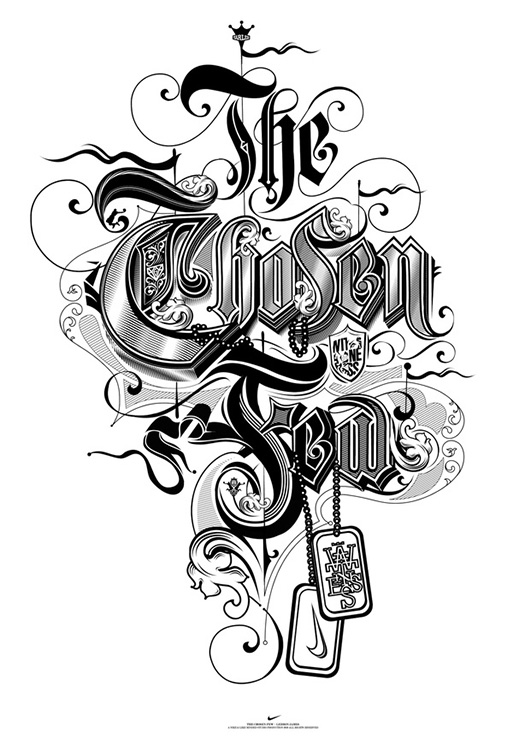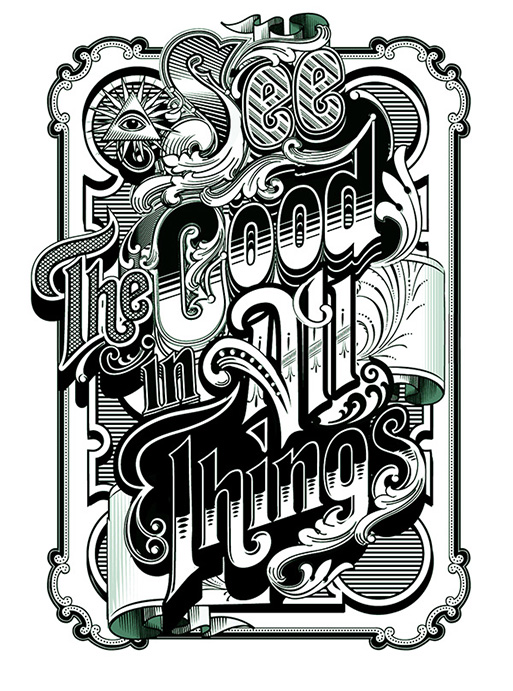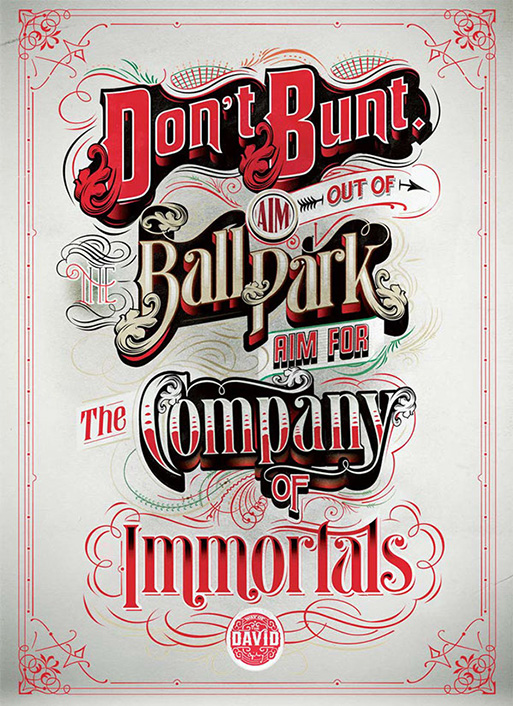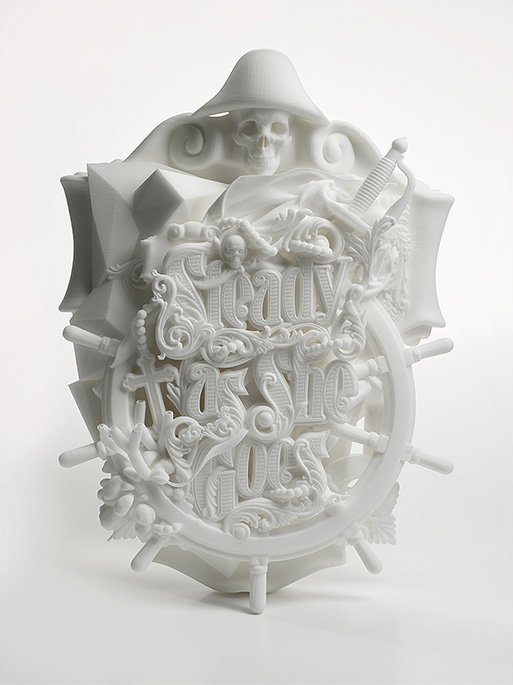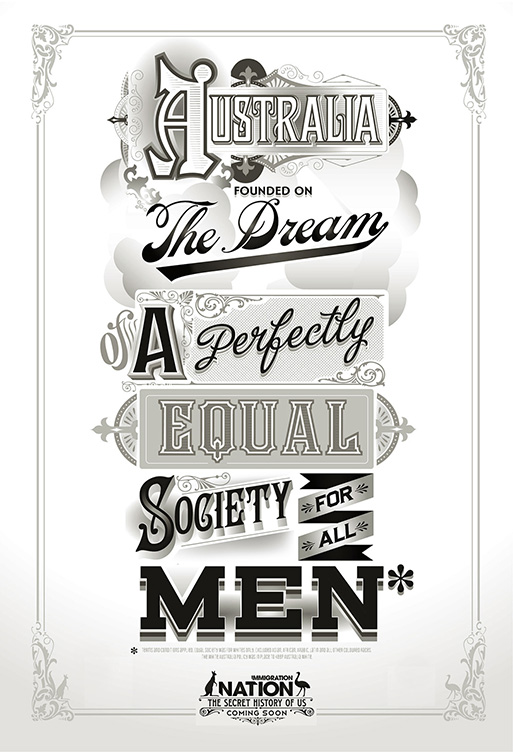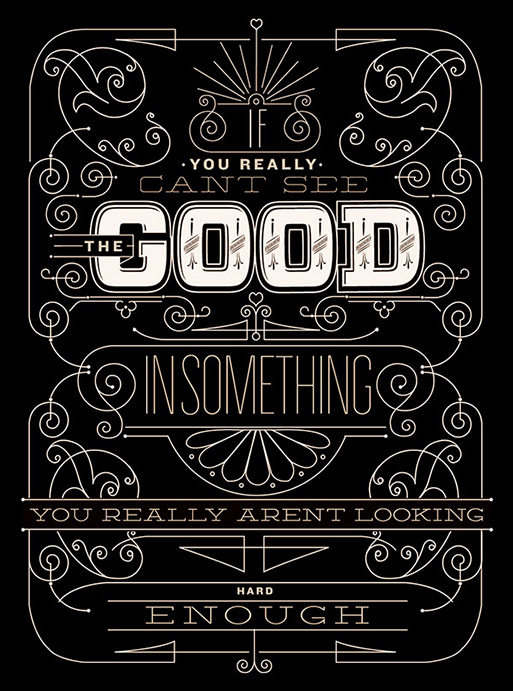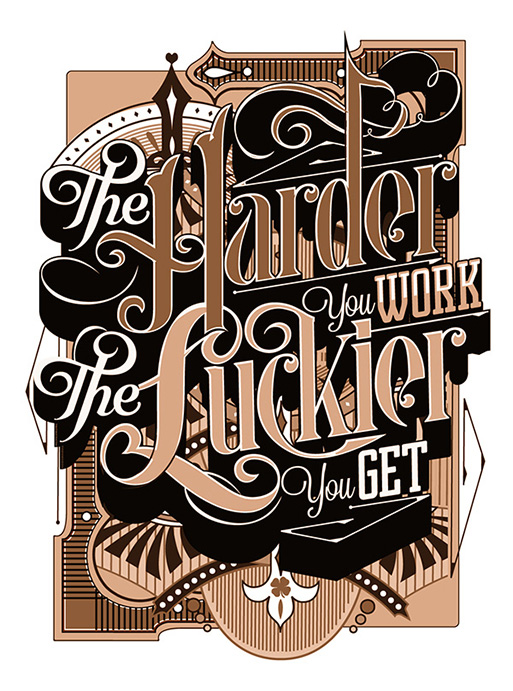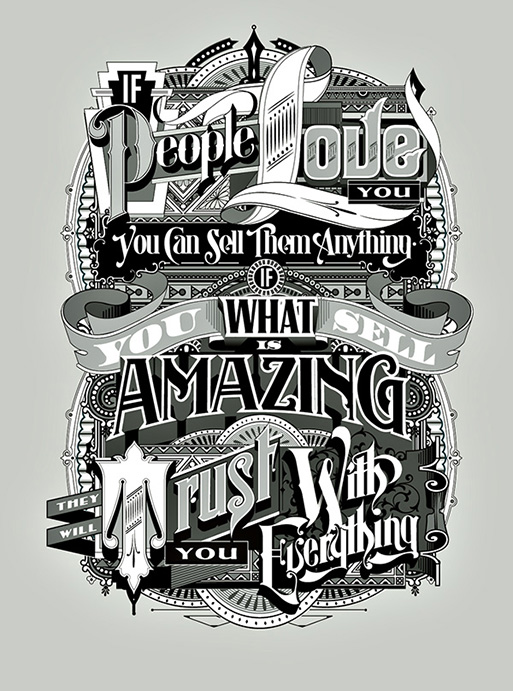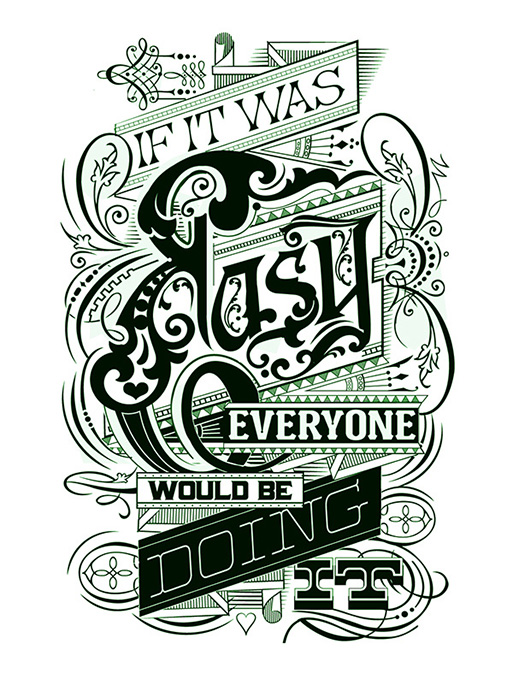
The intriguing typography of a Like Minded mind
Internationally lauded artist Luca Ionescu is the creative force behind Like Minded Studio, a Sydney-based design studio with a range clients that include Nike, Zoo York, MTV, Coca-Cola or Hurley, to name a few. Renowned for his logo and typography work, as well as his talent for branding and motion graphics.
Ionescu has been a viral sensation for many collaborations, the one with Baz Luhrman and his team on logo branding and typography for “The Great Gatsby” was a hit for many with it’s original display typeface and letterforms exclusively for the opulent production.